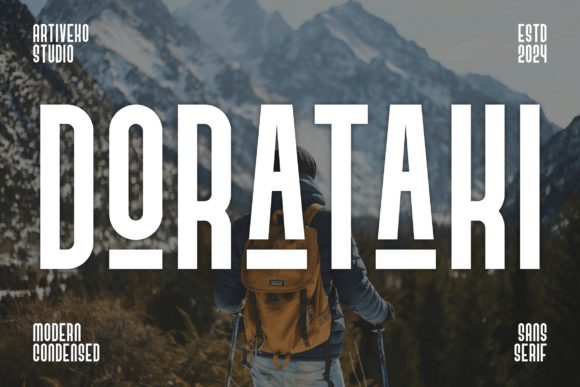
Dorataki: A Modern Sans Serif for Editorial Design
I was staring at a blank canvas in my design software, trying to finalize the cover for a new lifestyle ebook on mindful living. The content was ready, but the title felt heavy and outdated with the previous typeface I had chosen. I needed something that breathed clarity and modernity, something that would instantly signal to the reader that this guide was contemporary and refined. That is when I discovered Dorataki, a sleek and contemporary sans serif font crafted for modern design needs. With clean lines, geometric proportions, and refined details, Dorataki offers a minimalist aesthetic that works perfectly for high-end editorial projects.
As someone who spends hours curating fonts for digital magazines and printable planners, I know that finding the right typography can make or break a layout. Dorataki immediately stood out not just for its visual appeal, but for how effortlessly it elevated the entire mood of the project. It is rare to find a typeface that balances geometric precision with such a relaxed, approachable feel, making it an ideal choice for creators looking to refine their brand identity.
Dorataki for Minimalist Ebook Covers and Digital Guides
When selecting Fonts for an ebook cover, the goal is often to create immediate visual impact without cluttering the design. Dorataki excels in this area because its strong, confident strokes command attention while maintaining enough negative space to look elegant. In my recent project, I used Dorataki for the main title of the mindfulness guide, pairing it with a subtle background texture. The result was a cover that looked professional and expensive, yet remained inviting to potential readers.
The geometric proportions of this Sans Serif family allow it to scale beautifully across different formats. Whether the ebook is viewed on a large tablet screen or a small smartphone, the characters remain distinct and legible. This scalability is crucial for digital products where users consume content on various devices. By choosing Dorataki, I ensured that the visual hierarchy of the cover was clear, guiding the eye directly to the most important information before moving to the subtitle or author name.
Using Dorataki for Clean Blog Headers and Article Titles
Beyond ebooks, I tested Dorataki on a mockup for a lifestyle blog redesign. Blog headers need to be distinctive enough to establish brand recognition but readable enough to encourage scrolling. Dorataki provided the perfect solution for article titles and section headings. Its open apertures and consistent stroke weight make it highly legible even at smaller sizes, which is essential for mobile optimization.
In the layout, I applied Dorataki to the H1 and H2 tags of the blog posts. The font's modern character gave the site a fresh, updated look without requiring a complete overhaul of the color palette or imagery. For bloggers and publishers, having a versatile display font like Dorataki means you can maintain consistency across your content library. It creates a cohesive reading experience where the typography supports the narrative rather than distracting from it.
Dorataki for Wedding Invitations and Elegant Branding
While many assume Sans Serif fonts are strictly for corporate or tech designs, Dorataki proves otherwise with its refined details. I experimented with using this typeface for a wedding invitation suite concept, aiming for a look that was chic and uncluttered. The clean lines of Dorataki offered a sophisticated alternative to traditional script fonts, appealing to couples who prefer a modern, minimalist wedding theme.
For branding purposes, Dorataki serves as an excellent primary typeface for logos and business cards. Its geometric structure conveys stability and trust, while the contemporary styling suggests innovation. When designing social media graphics for a fictional coaching brand, I found that Dorataki allowed the text to stand out against busy backgrounds, ensuring that the message was communicated clearly. This versatility makes it a valuable asset for designers working across multiple niches, from luxury goods to wellness services.
Pairing Dorataki with Serif Fonts for Readable Body Copy
One of the most critical aspects of editorial design is font pairing. While Dorataki is stunning for headlines, pull quotes, and decorative accents, it is often best paired with a contrasting serif font for longer body copy. In my newsletter template design, I used Dorataki for the header and sidebar navigation, then selected a classic serif font for the article text. This combination created a beautiful rhythm, allowing the boldness of the Sans Serif to frame the readability of the serif.
This pairing strategy enhances the overall user experience by establishing a clear distinction between structural elements and reading content. It helps the reader navigate the page intuitively, knowing exactly where to focus their attention. When creating PDF workbooks or printable planners, this contrast ensures that instructions and titles are easily distinguishable from the content areas where users will write or interact.
Ultimately, the decision to use Dorataki came down to its ability to elevate the content through thoughtful design. It transformed a simple layout into a polished, engaging experience that resonated with the target audience. Whether you are crafting a wedding guide, launching a new blog, or designing a series of educational workbooks, this sleek and contemporary sans serif font provides the foundation for a modern, memorable brand identity.